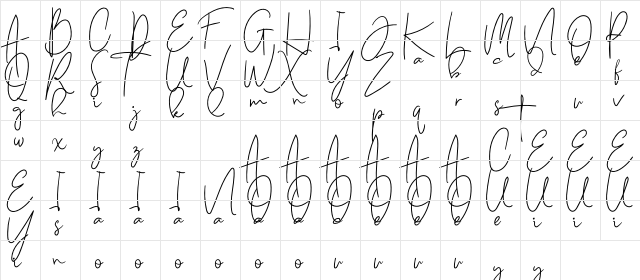
Naturally Regular Font Preview
Naturally Regular
Naturally Regular Font Details
Design Context for Naturally Typeface
Naturally is a composed and adaptable typeface that performs quietly and consistently across a wide range of design contexts.